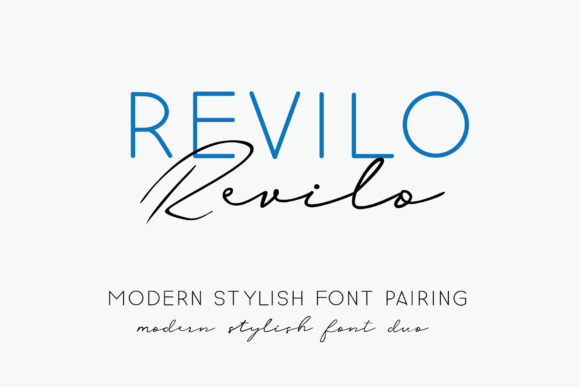
Introduce yourself to Revilo Duo, an enticing font duo that will leave you awestruck with its captivating charm and endless creative possibilities. Its modern and stylish demeanor is the perfect fusion of a sleek sans serif, Revilo, and an exuberant flowing script, Oliver Quin. Revilo Duo is the brainchild of ogit, a renowned font designer known for creating fonts that inspire and captivate.
This font duo is more than just a digital asset; it's a gateway to unlocking your creativity and expressing yourself with unparalleled flair. Its versatility knows no bounds; whether it's for creating elegant wedding invitations, captivating social media posts, mesmerizing branding materials, or crafting logos that exude sophistication, Revilo Duo is your trusty companion.
Say goodbye to boring, mundane fonts and embrace the allure of Revilo Duo. Its magical touch will transform your designs into mesmerizing masterpieces, leaving an unforgettable impression on your audience. Unleash your imagination and explore a world of endless possibilities with Revilo Duo, the font duo that will ignite your creative spirit.
Don't settle for ordinary; choose Revilo Duo, the font duo that will make your designs shine brighter than the stars. Its unique combination of elegance and playfulness will elevate your projects to new heights, leaving your audience spellbound and eagerly awaiting your next creation.